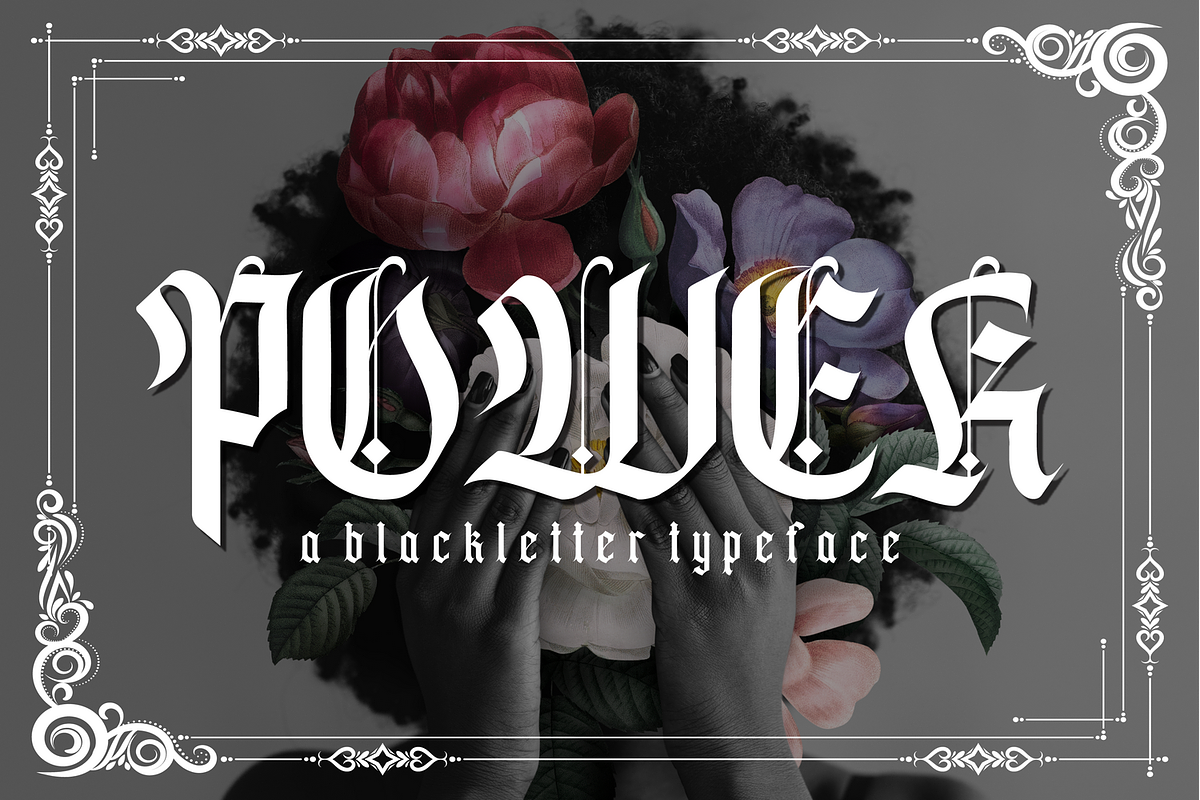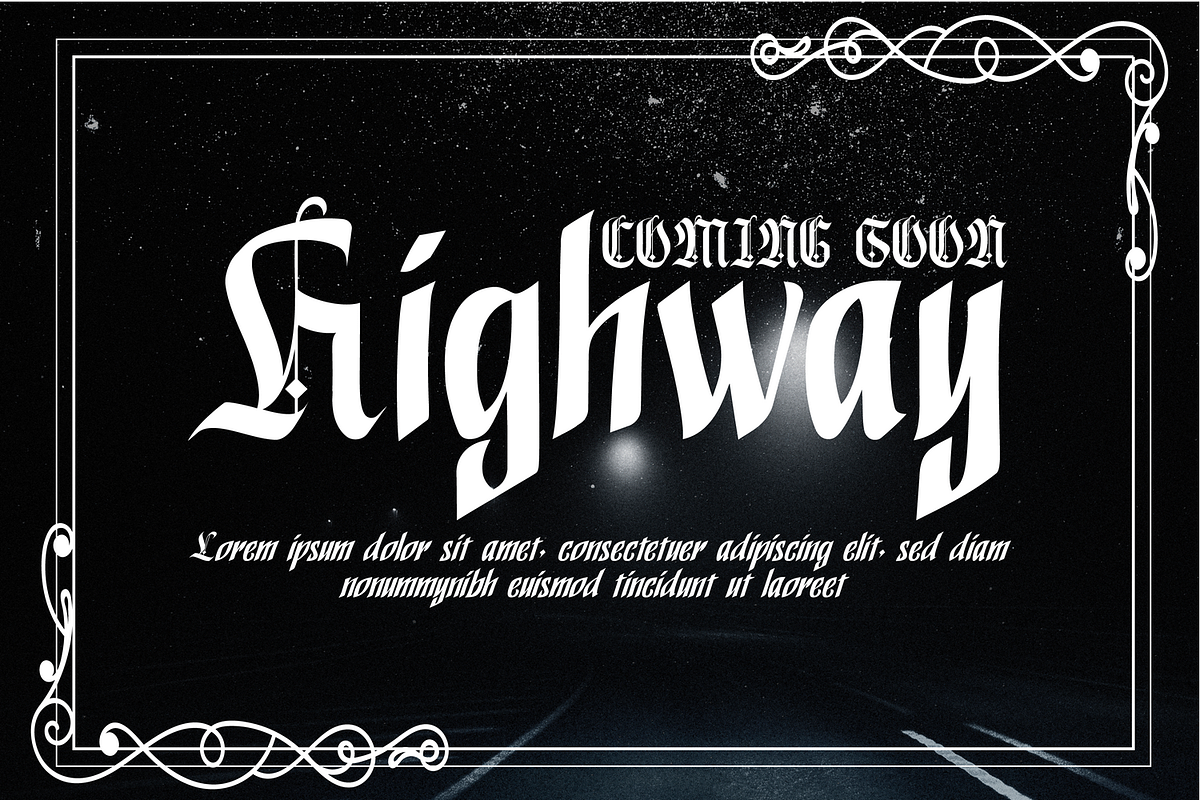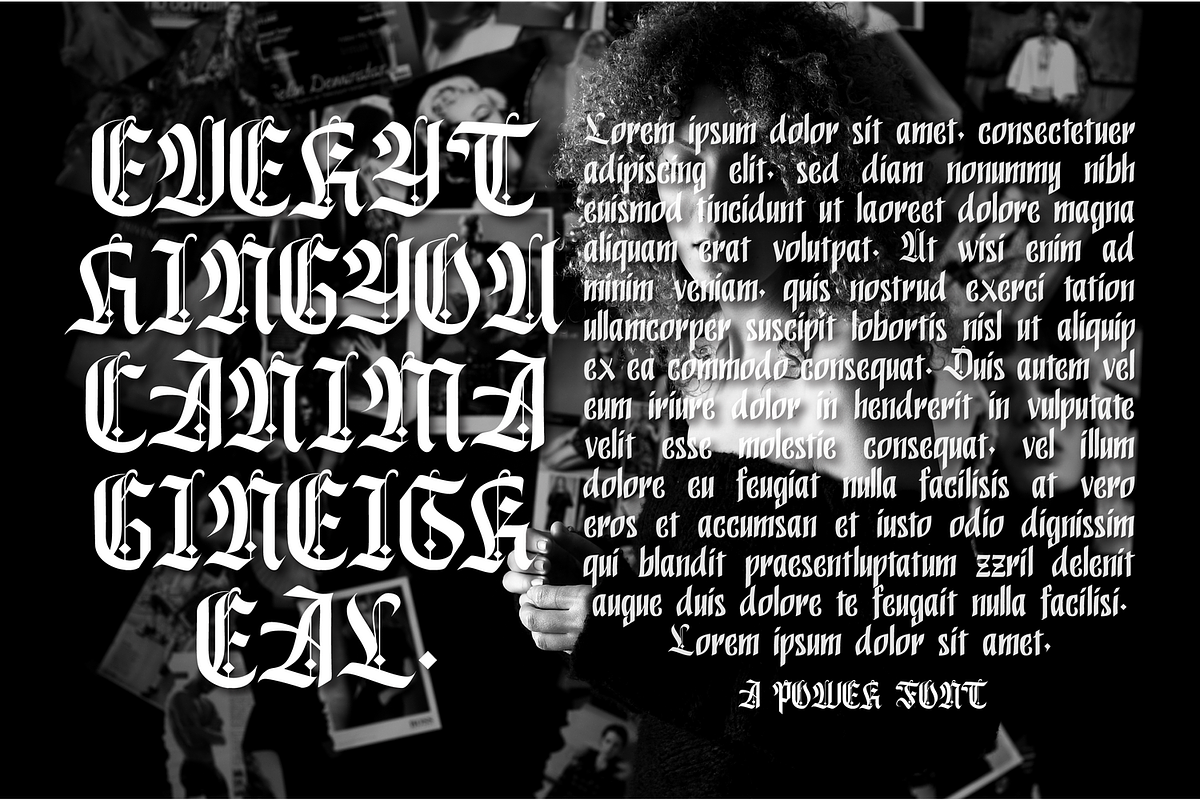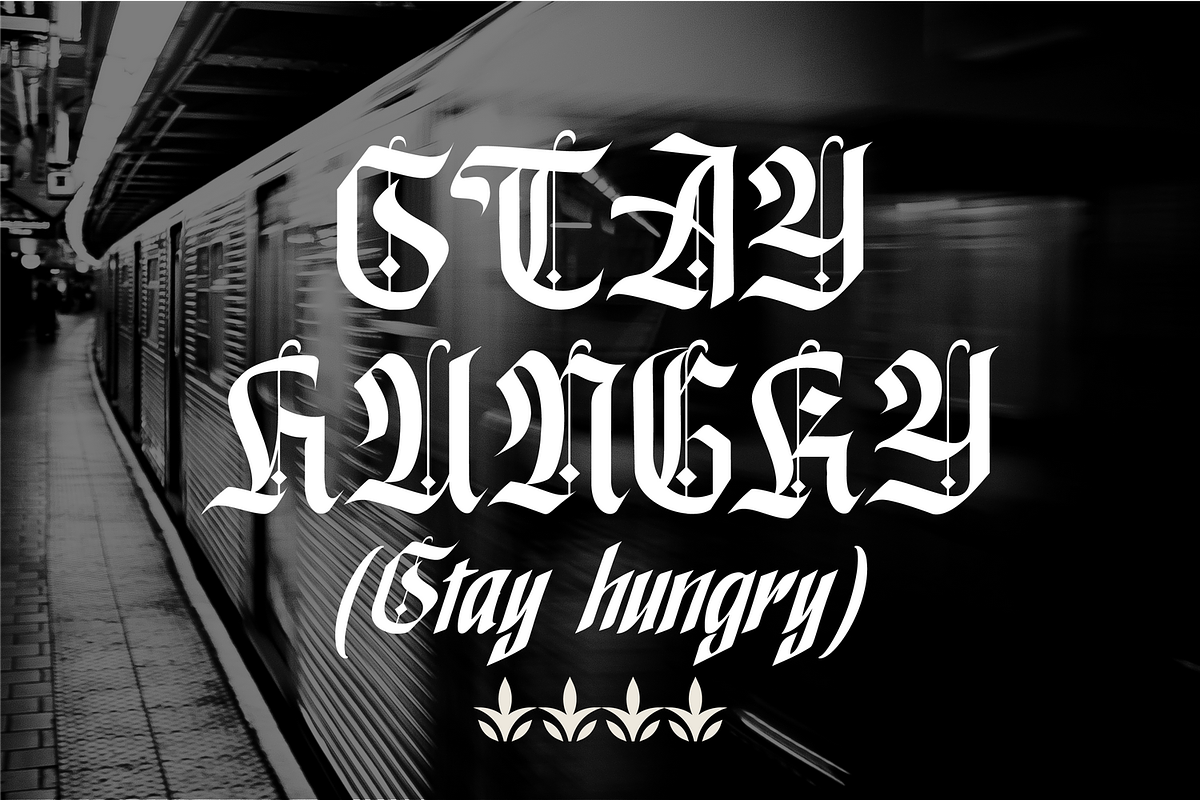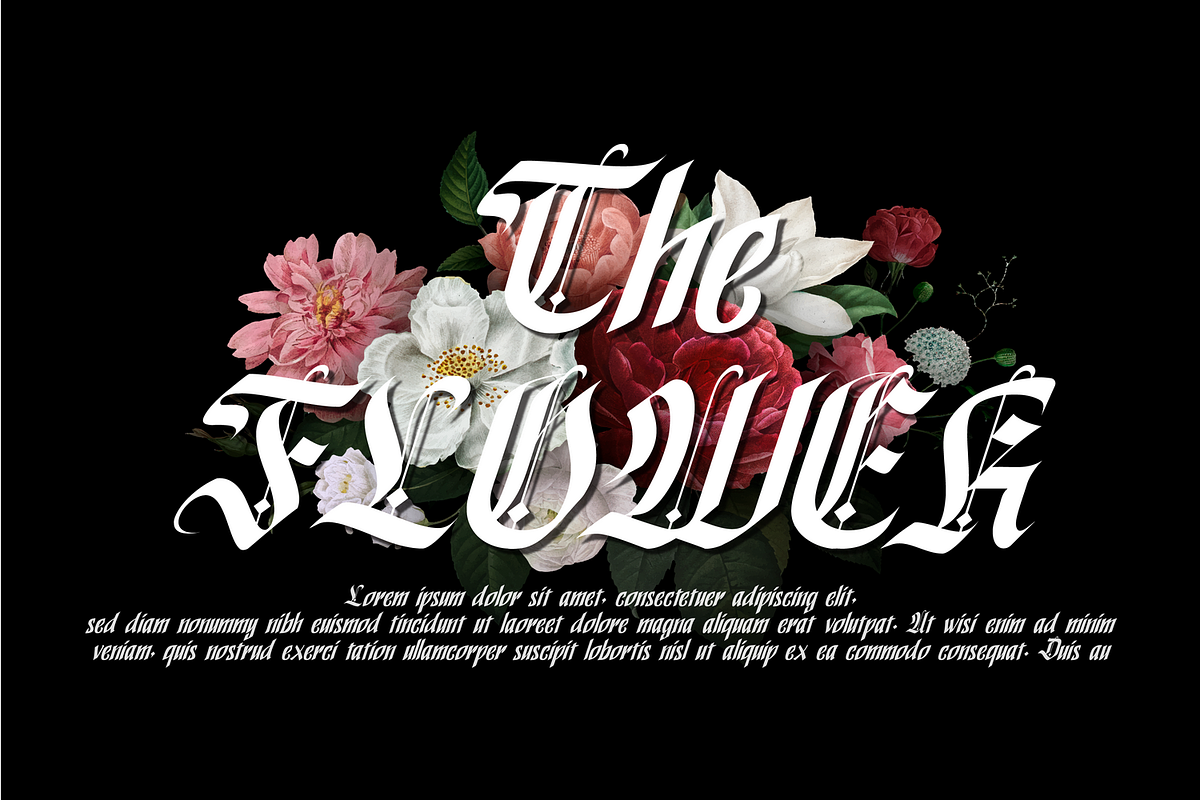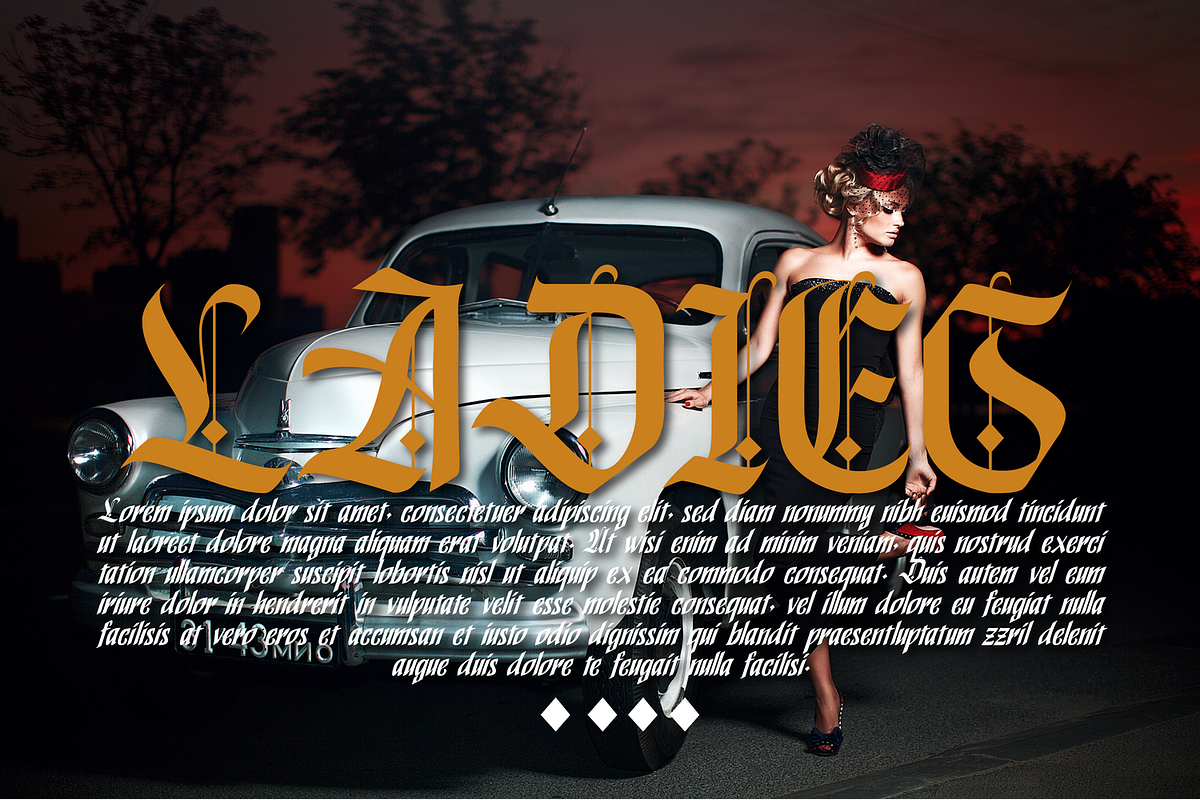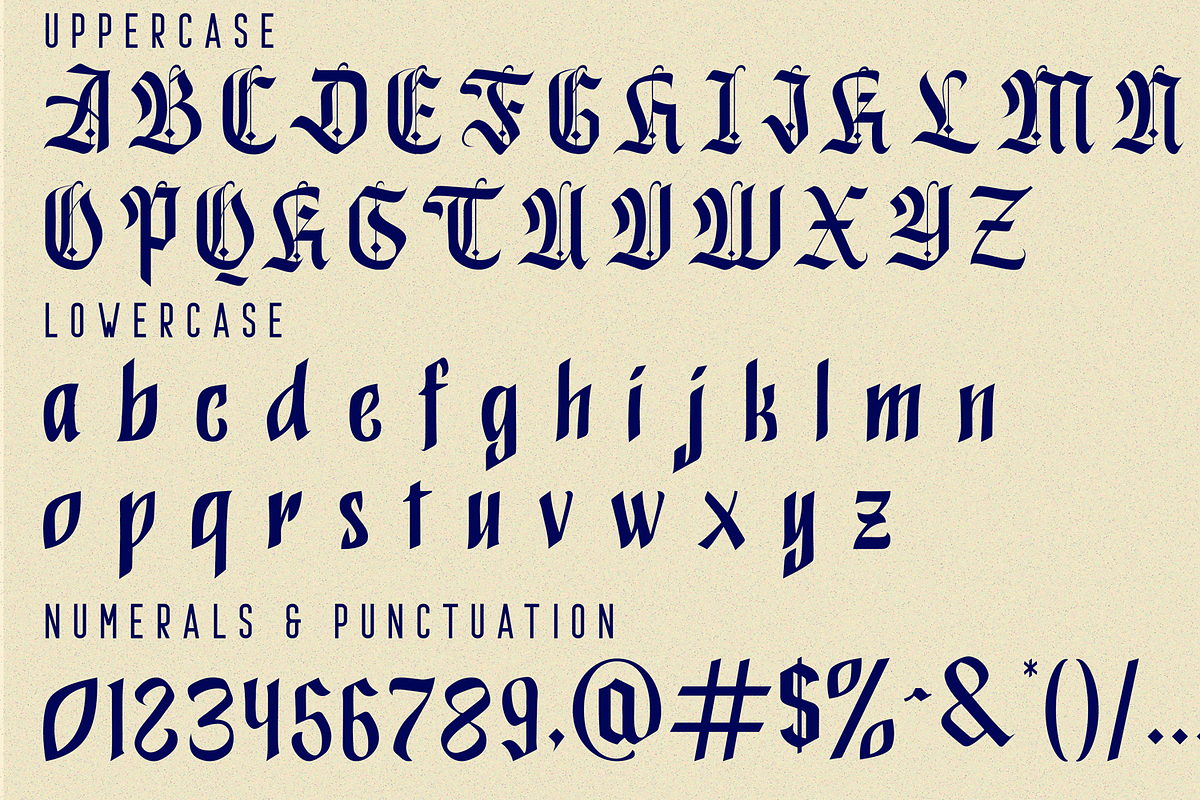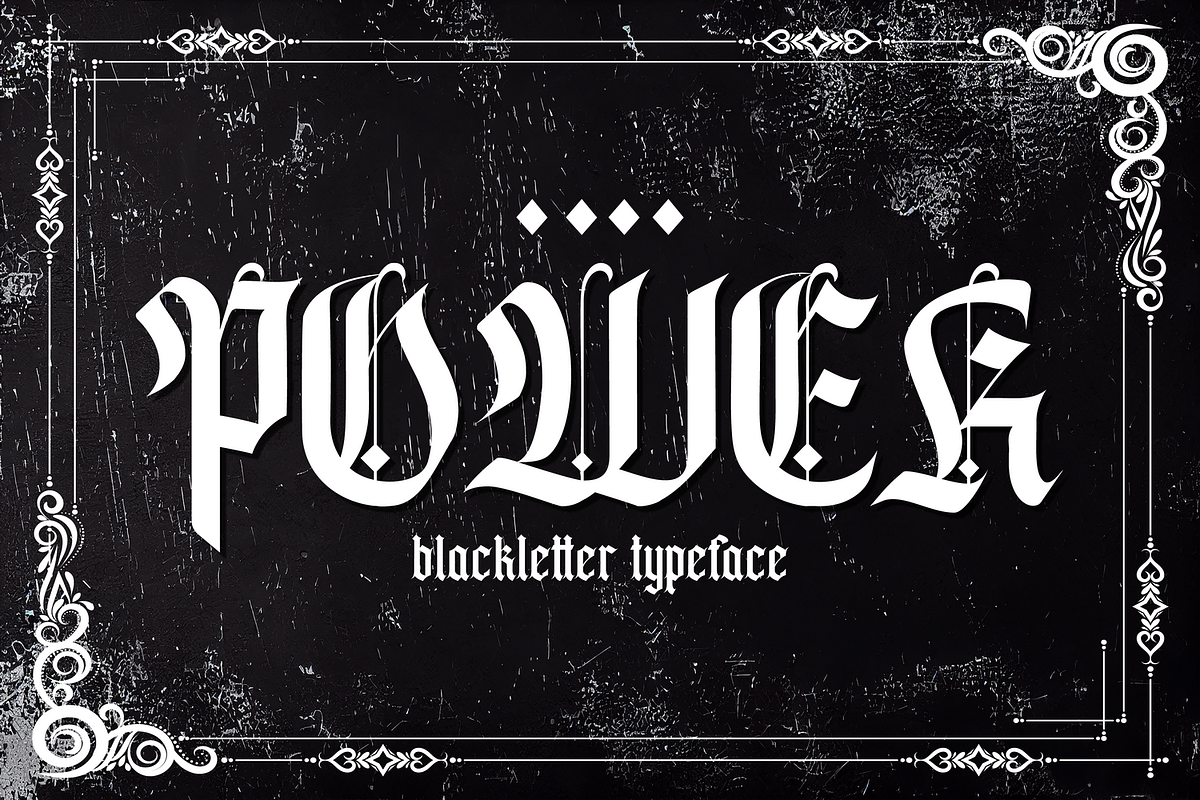
Power Blackletter Font
POWER BLACKLETTER Font is a bold and daring blackletter font that exudes a sense of strength and power. The font combines elements of both modern sans-serif and blackletter styles, creating a striking and distinctive appearance. It's a font that combines blackletter style with calligraphy. It is suitable for vintage, metal, tattoo, and modern designs because it blends traditional and modern elements.